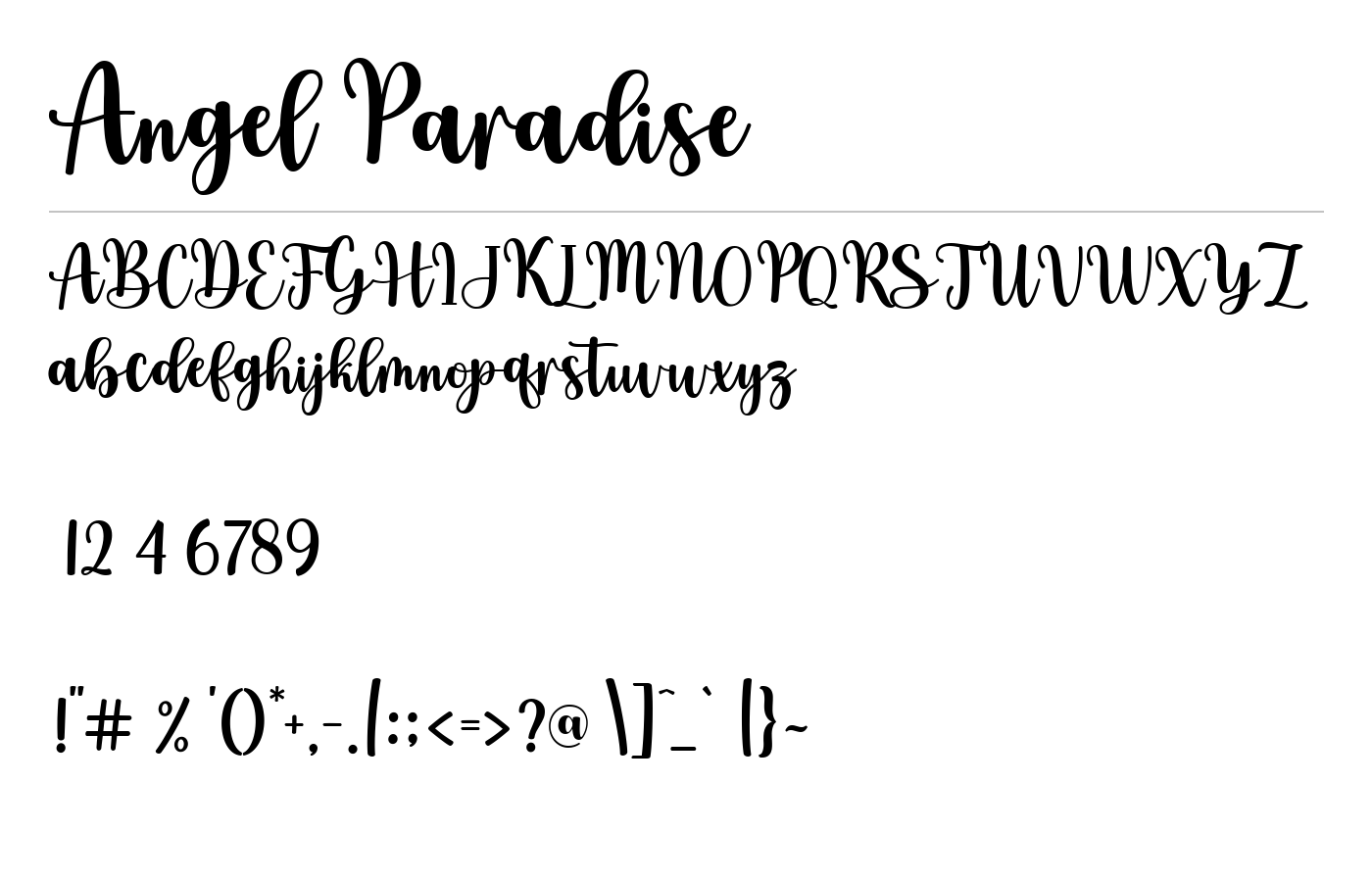
Angel Paradise is a lively and elegant script font with smooth, flowing strokes and a modern calligraphic style. Its charming and playful letterforms, coupled with a medium weight and balanced x-height, make it perfect for invitations, branding, and feminine designs that need a personal, handcrafted feel. This font works especially well in headlines and logos where a whimsical yet stylish impression is desired.
Angel Paradise Font
About Angel Paradise Font
| Font family | Angel Paradise Font |
| Designer | Muammar Kadafi |